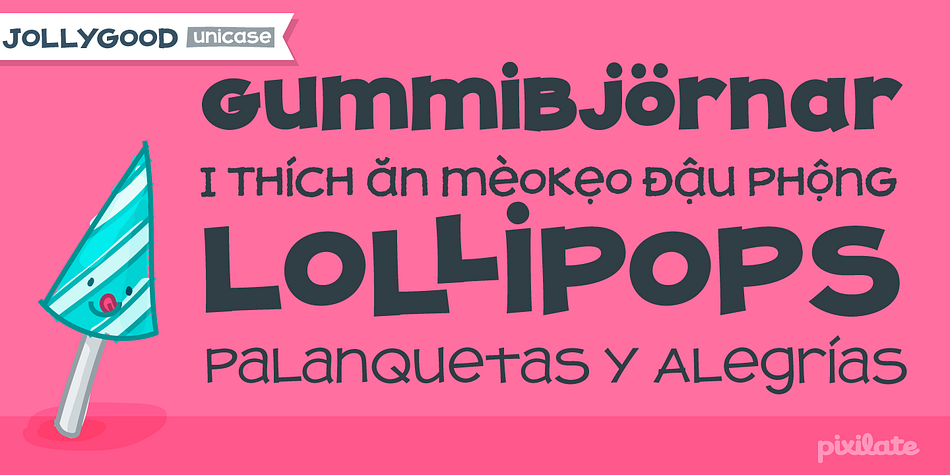
JollyGood Proper Unicase
JollyGood Proper Unicase is a comic, hand drawn and sans serif font family. This typeface has nine styles and was published by Pixilate.
Another member of the JollyGood family, this unicase version is a great way to add some fun to your headlines.
It has a very complete character set, with support for western and central european languages.